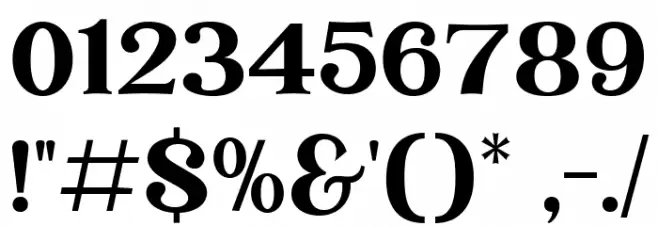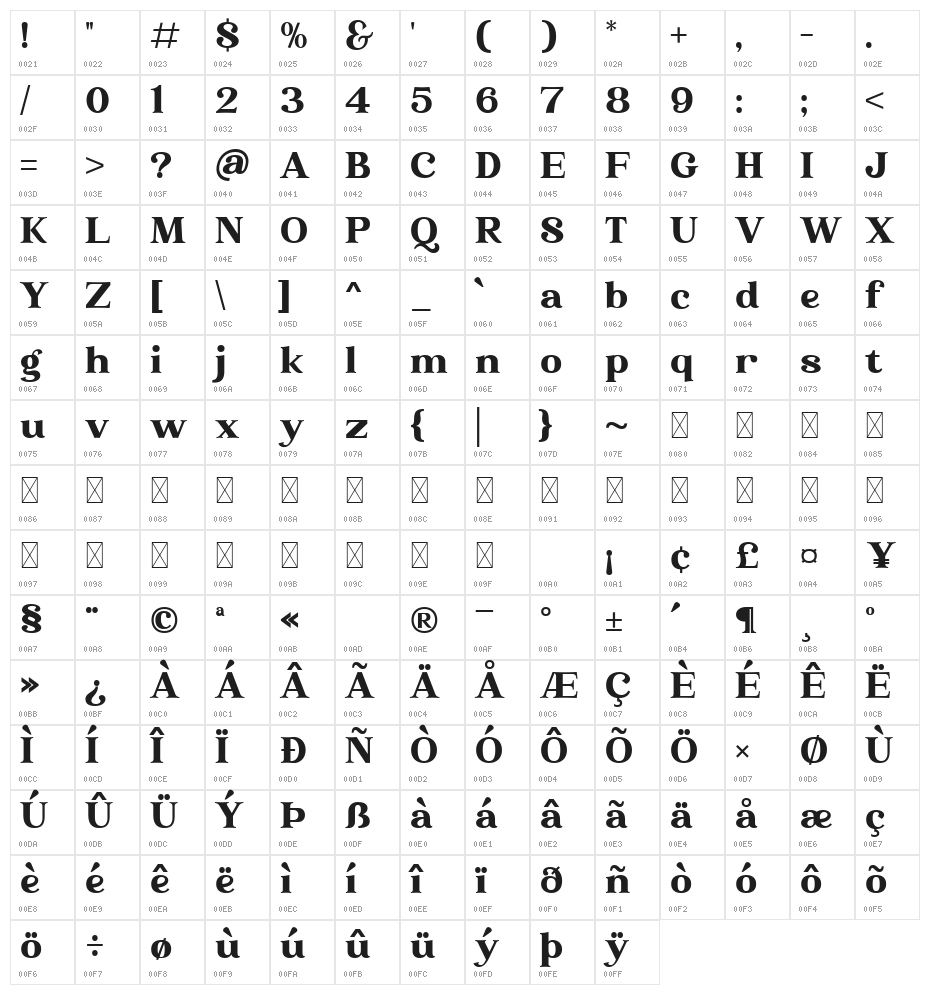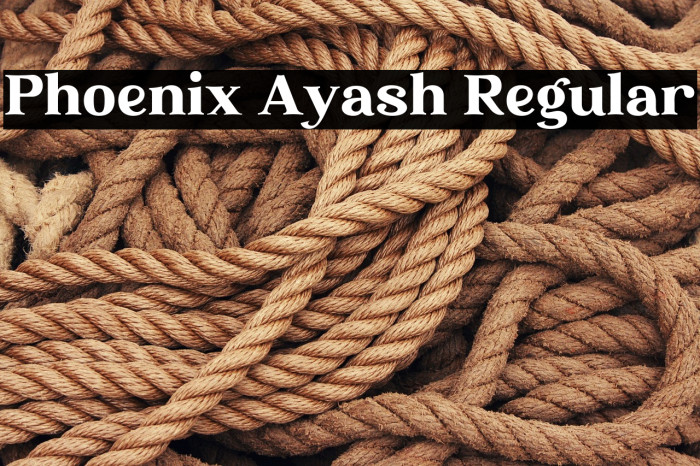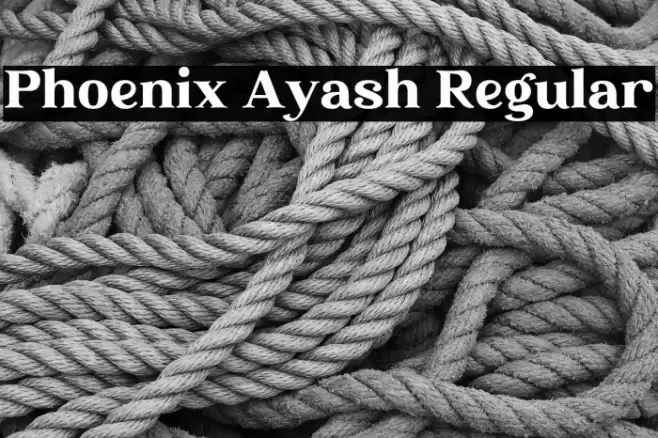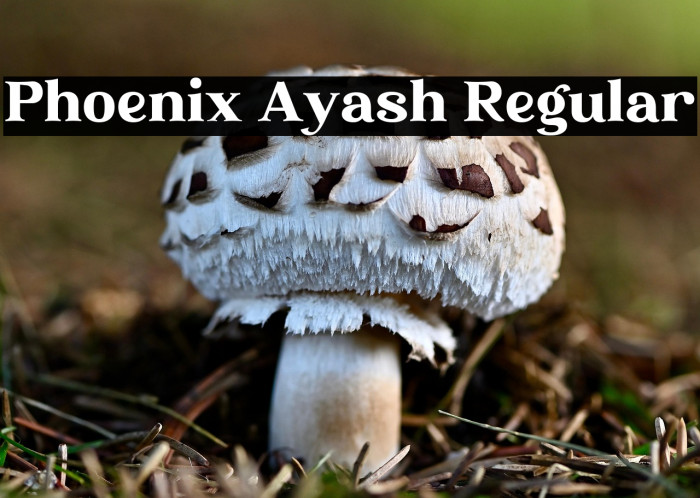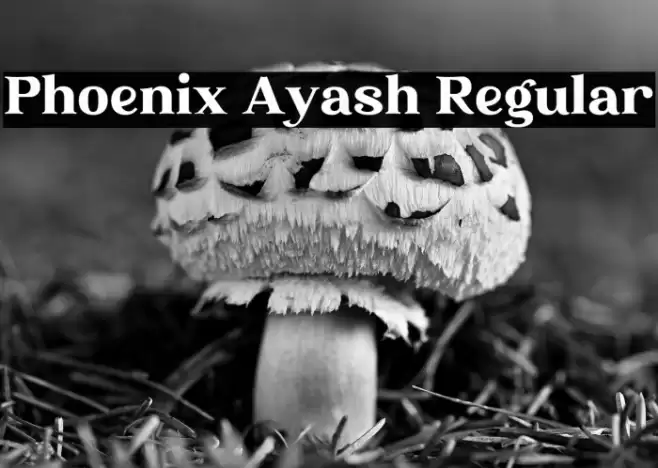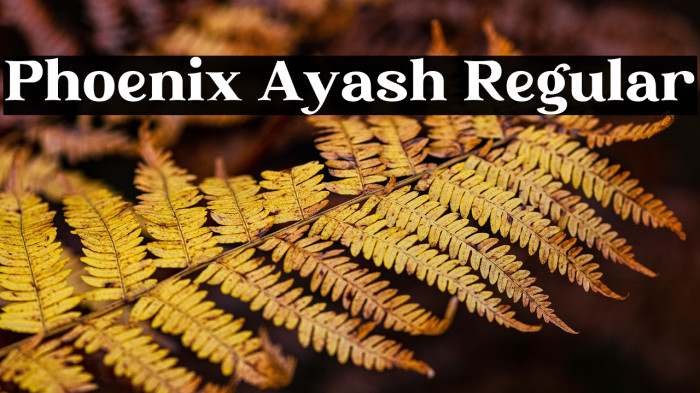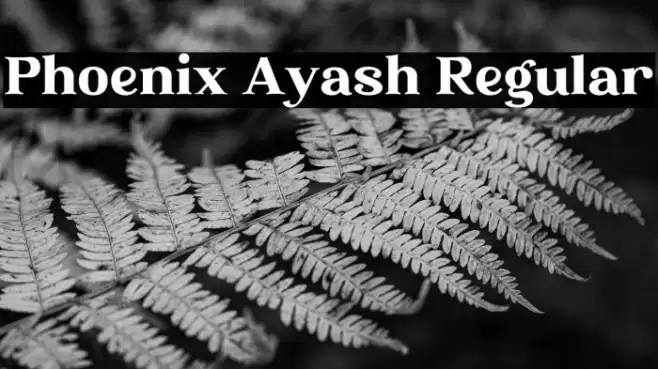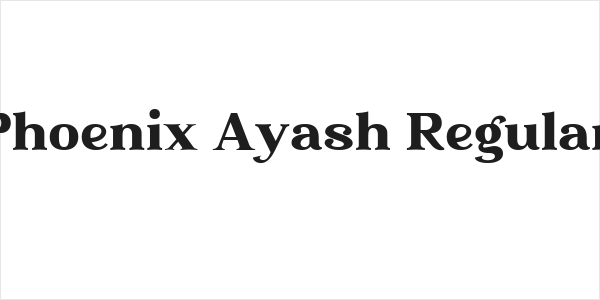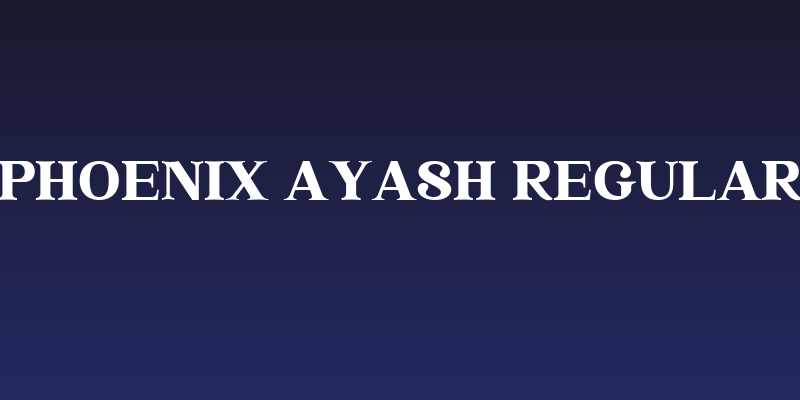
Phoenix Ayash Regular Font
Phoenix Ayash Regular Description
This font exhibits a classic serif style with strong, bold strokes and high contrast between thick and thin lines. The serifs are pronounced, adding a traditional and authoritative feel to the text. The uppercase letters are robust and commanding, while the lowercase letters maintain a consistent and harmonious appearance. The numerals are clear and well-defined, making them easily readable. Special characters are elegantly integrated, maintaining the overall aesthetic of the font. This typeface is versatile, suitable for both formal and creative applications.
| Proposed Projects | Ideal for editorial design, book covers, formal invitations, branding, and logo design. |